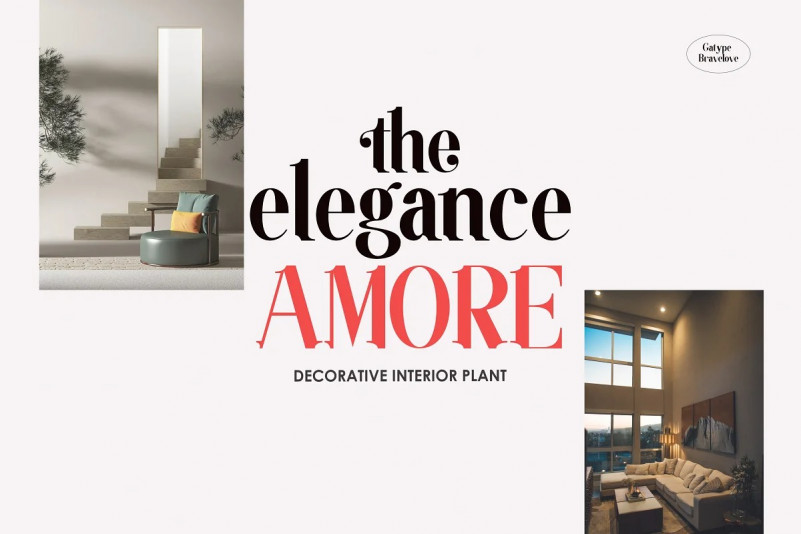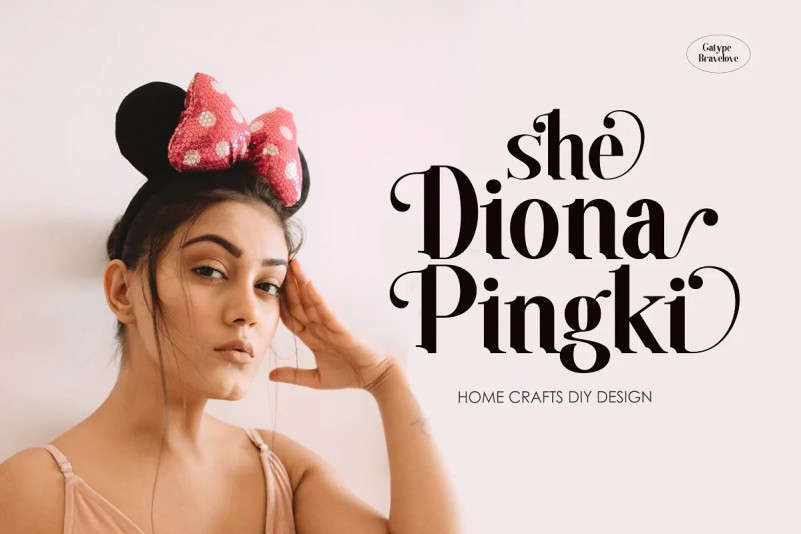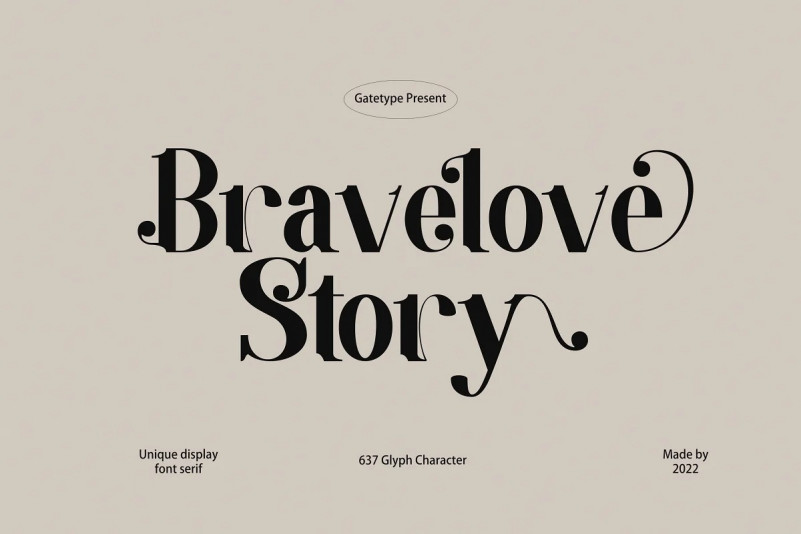
Brave Love Font
The Brave love font is an elegant serif typeface with subtle details. This neat font can add modern and fashionable brand appeal. This versatile display typeface has enough character for logos and branding, as well as headlines, apparel, bridal and more. Keep it classic, or decorate it with ornate alternatives to uppercase and lowercase glyphs!